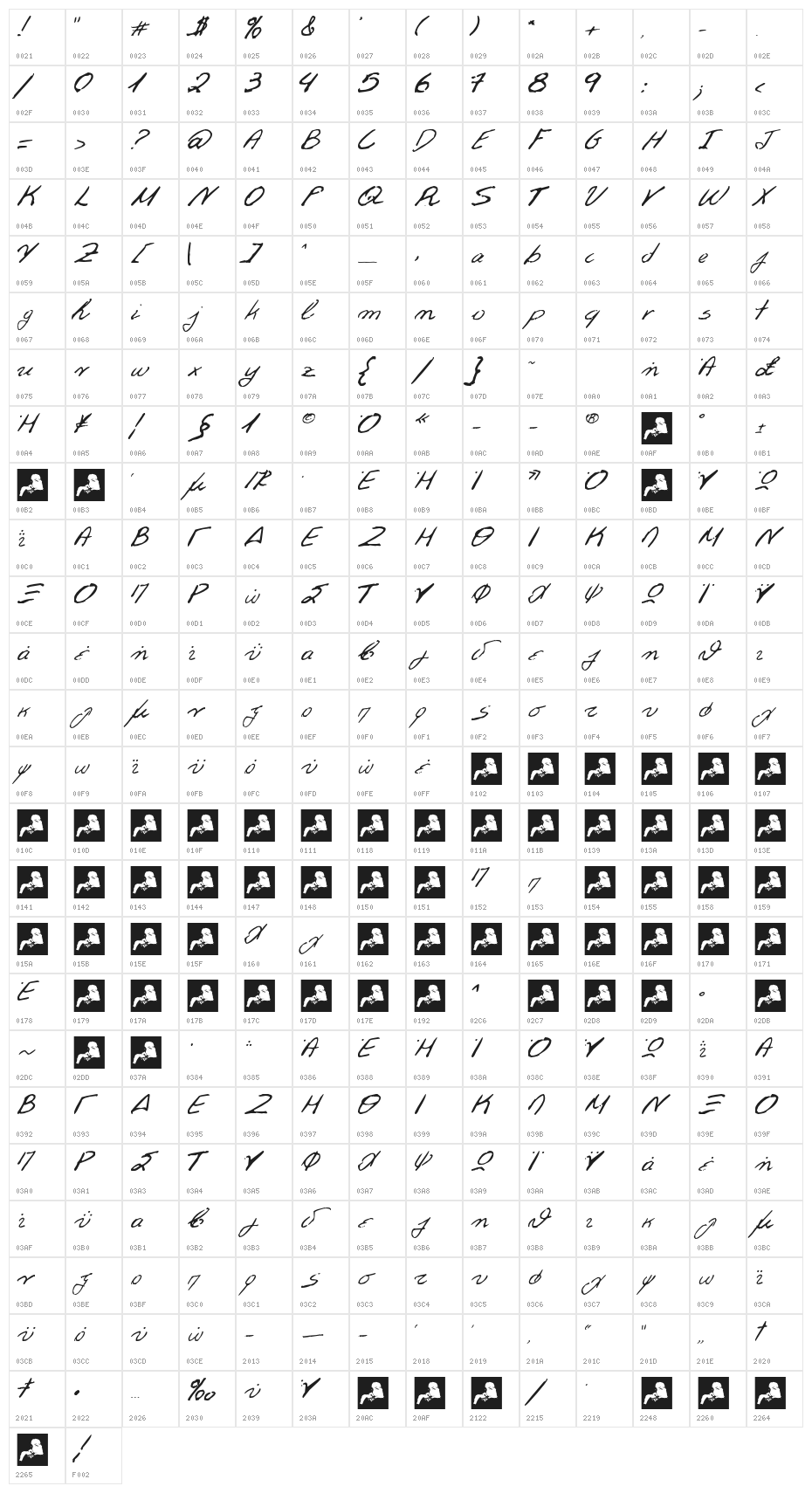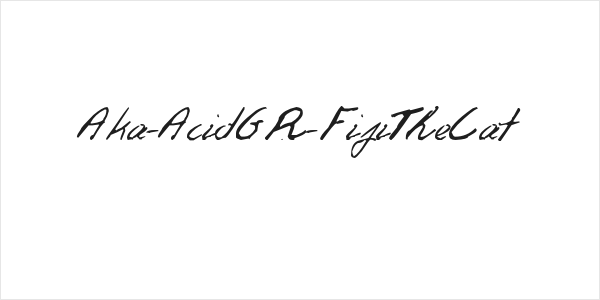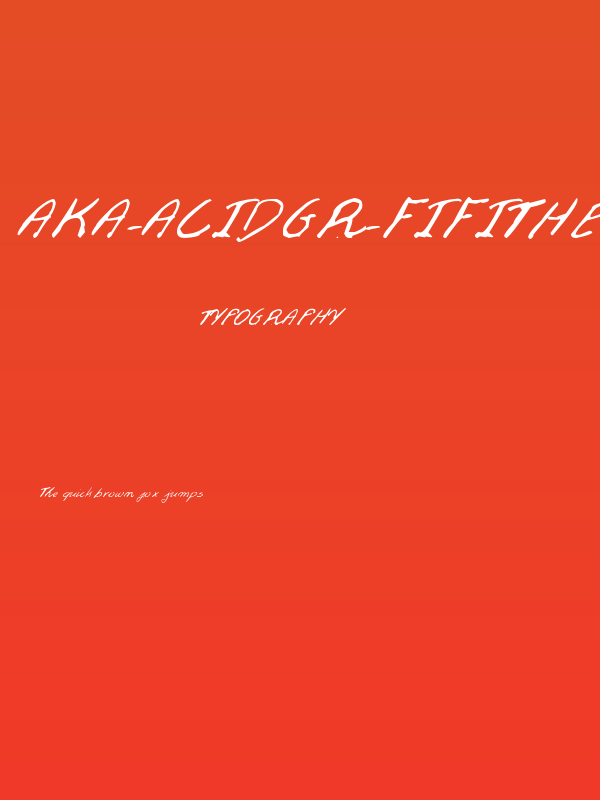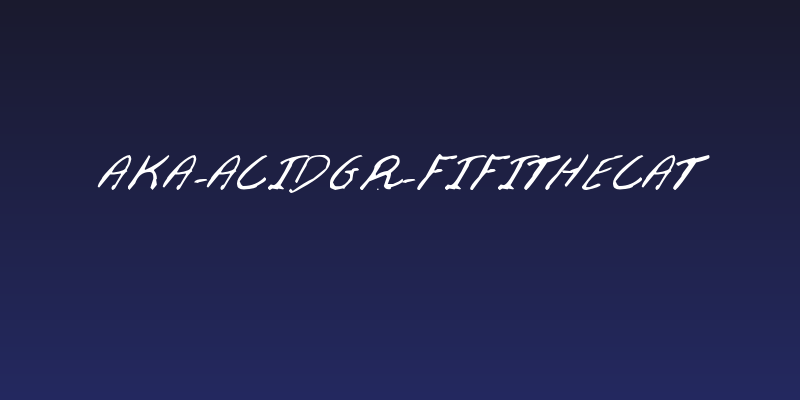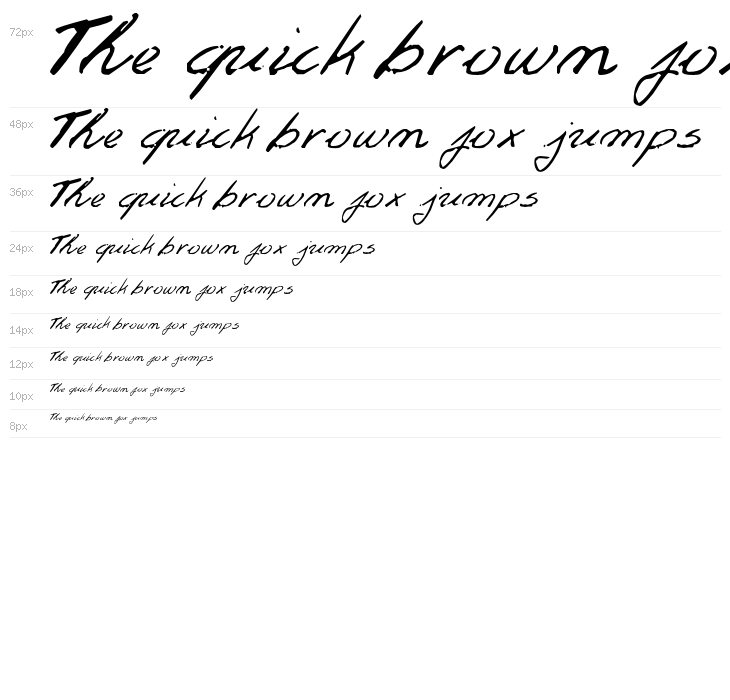
Aka-AcidGR-FifiTheCat Font
Aka-AcidGR-FifiTheCat Description
This font exudes a lively and dynamic handwritten style, characterized by its fluid and cursive strokes. The letters are connected in a smooth, flowing manner, giving it an authentic, personal touch. The uppercase letters maintain a consistent height, while the lowercase letters exhibit a playful variation in size and slant, enhancing its informal and spontaneous appearance. The numerals are bold and slightly slanted, matching the overall cursive theme. Special characters are integrated seamlessly, maintaining the font's cohesive look. This font is perfect for projects that require a personal, handwritten feel, such as invitations, greeting cards, or artistic branding.
| Proposed Projects | Ideal for invitations, greeting cards, personal branding, and artistic projects. |